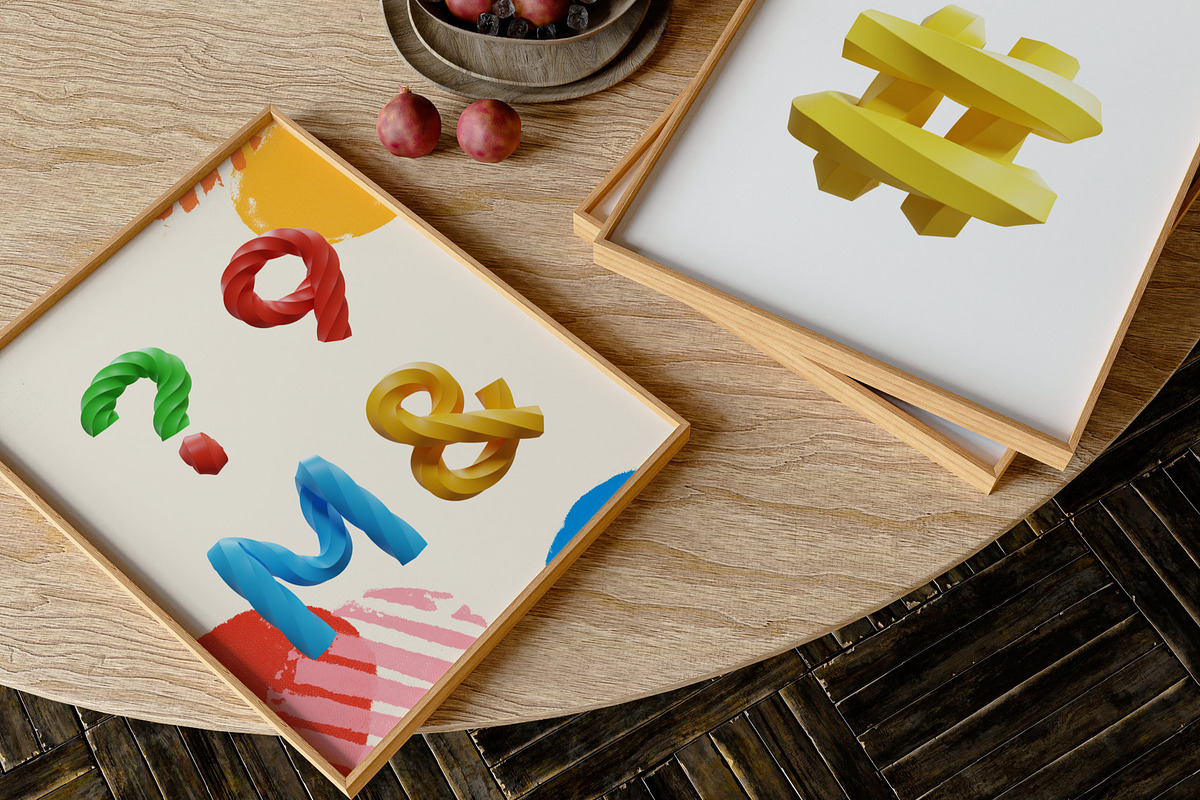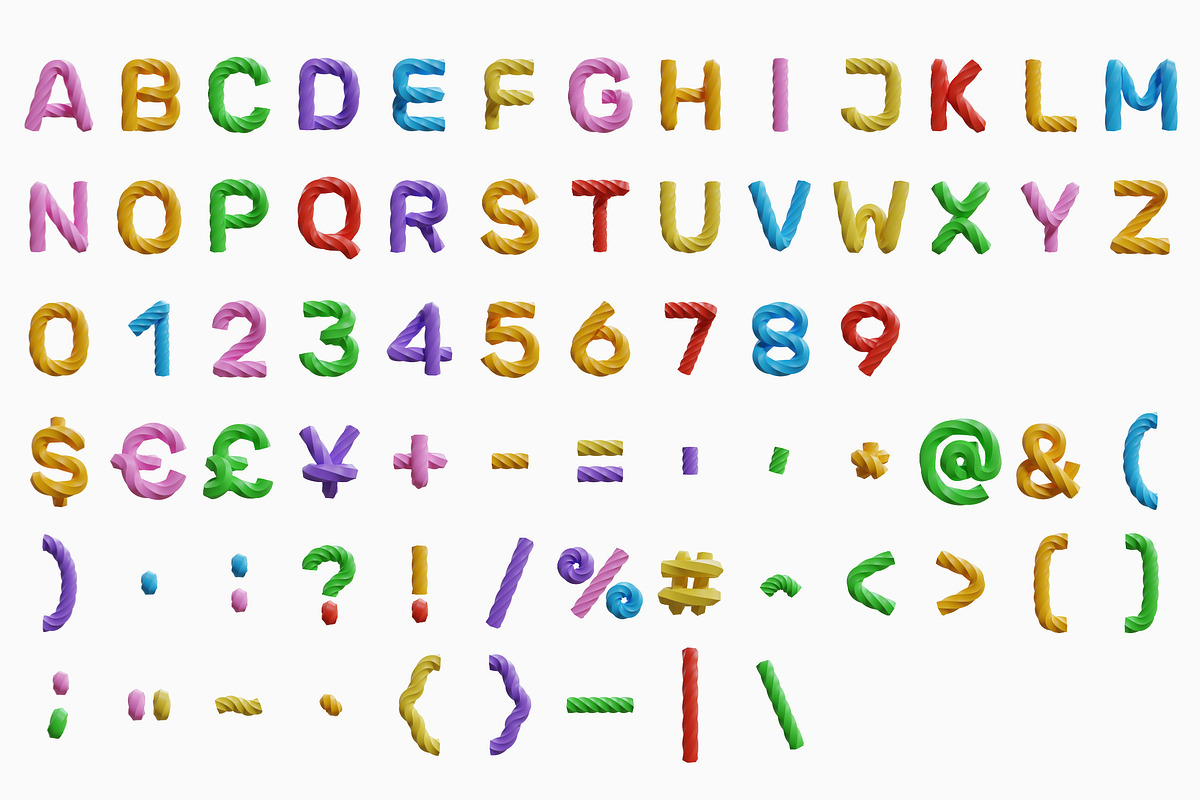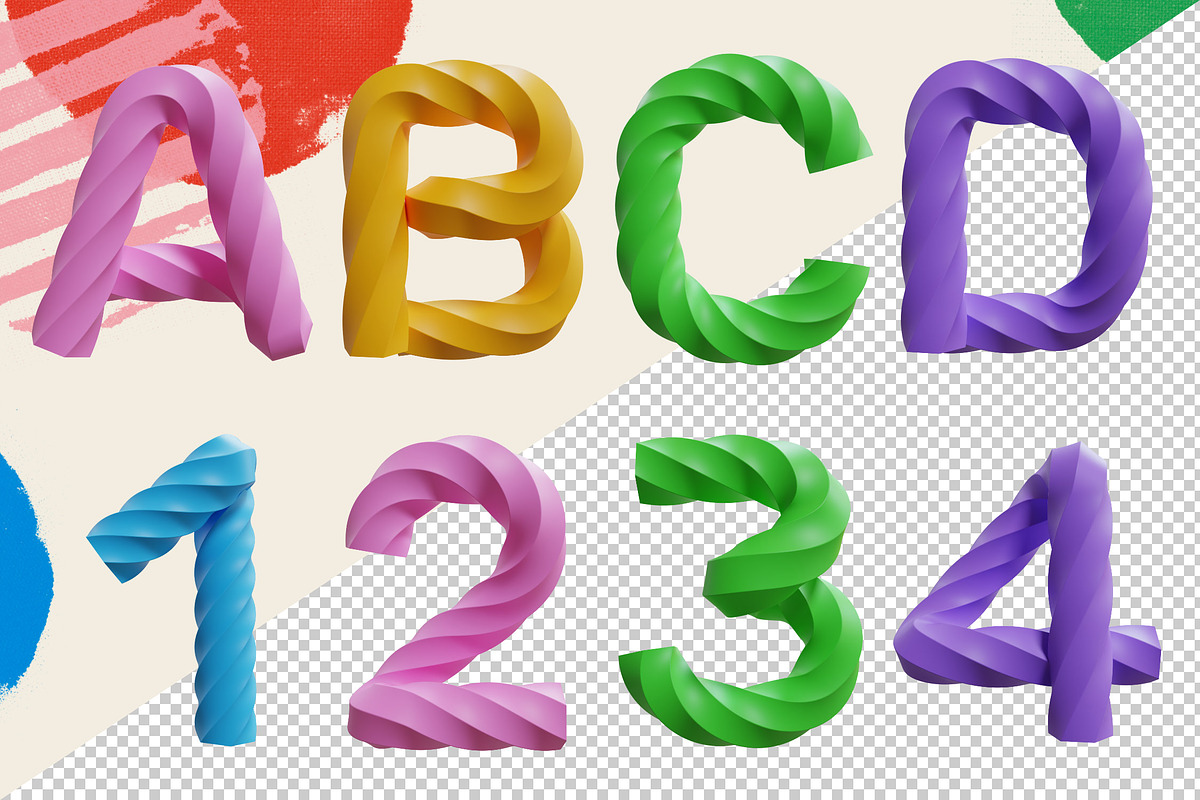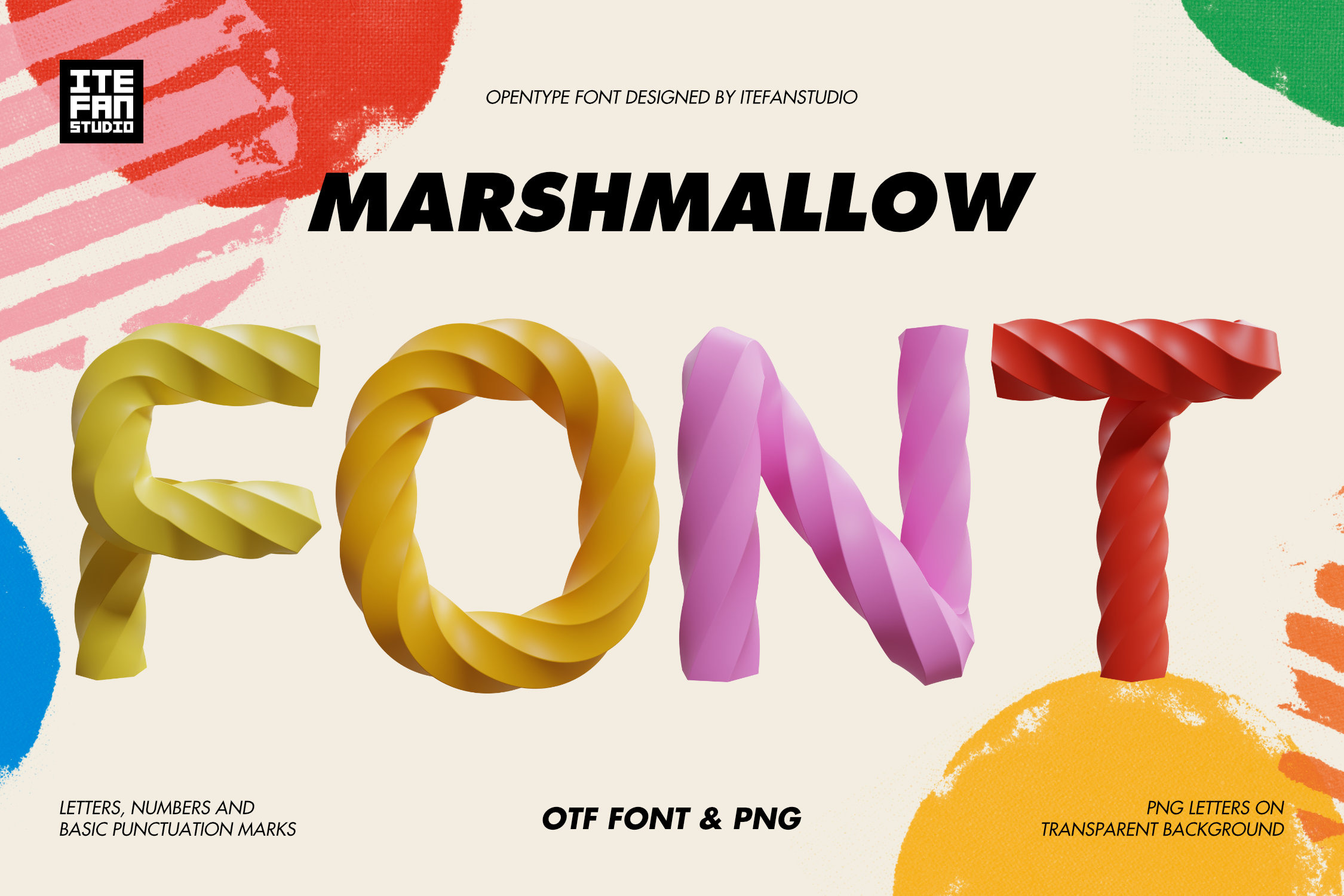
Marshmallow Font
This font features soft, marshmallow-style, candy-like colorful shapes. Its smooth curves, gentle gradients, and pillowy volume give it a playful yet modern look that feels tactile and inviting. Available in both OTF and PNG formats with transparent backgrounds.
This font is a high-resolution OpenType typeface featuring uppercase letters, numbers, and basic punctuation, with each character approximately 800 pixels tall. A complete preview of all letters and glyphs is provided for reference.